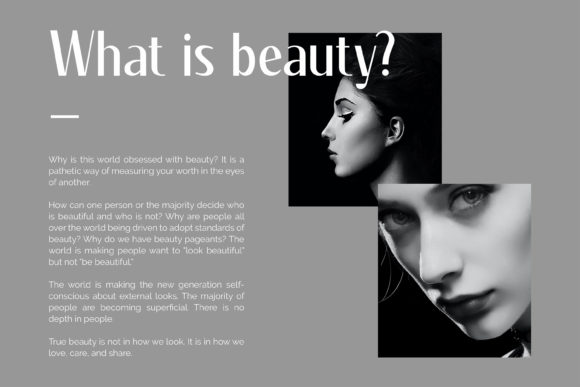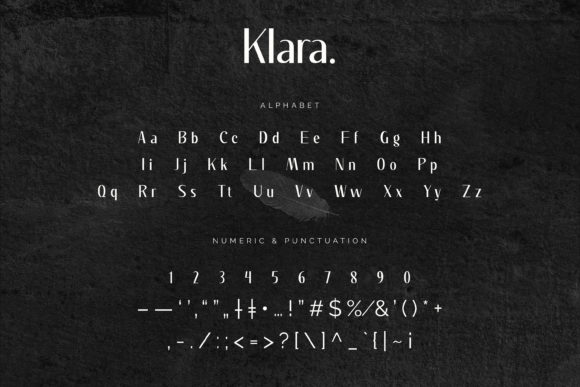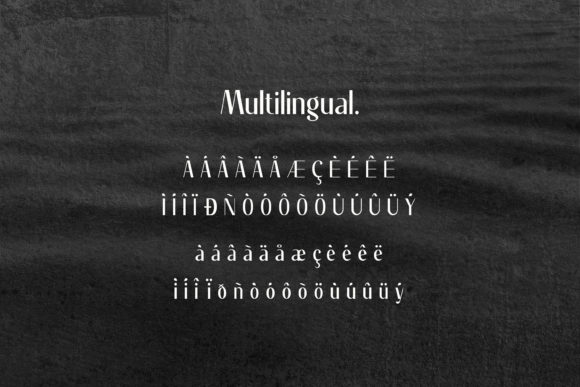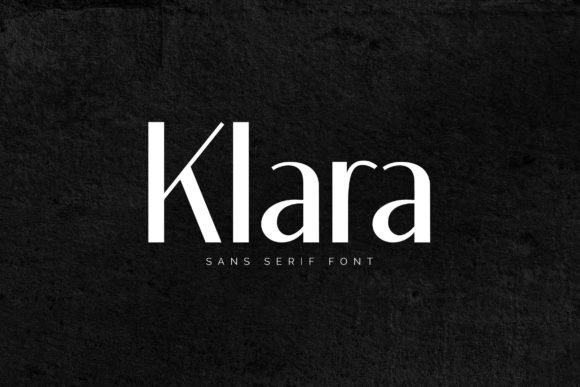
Introduction to Klara Font
Klara is an elegant and simple lettered sans serif font.
Why Choose Klara Font?
Klara Font offers exceptional quality and versatility, making it a valuable addition to your design toolkit. Whether you’re creating for personal projects or commercial use, Klara Font delivers professional results.